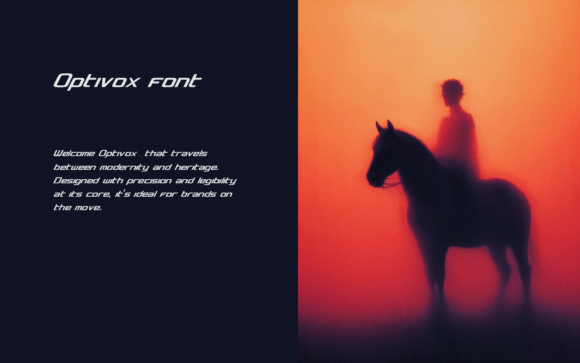
Introduction to Optivox Font
You know that moment when you’re working on a creative project and you finally find the perfect font to bring your vision to life? For designers, it’s a moment of pure joy. And if you’re looking for a font that exudes confidence, clarity, and a touch of heritage, you’re in luck. Say hello to the Optivox Font, a sans-serif font that seamlessly blends modernity and tradition.
With its precision-crafted design and subtle retro curves, the Optivox Font is the perfect design resource for brands on the move. Whether you’re creating a signage system, editorial spread, or any other high-quality visual content, this font is sure to deliver. And the best part? It’s available for free download, making it an accessible and valuable addition to any designer’s toolkit.
Key Features of Optivox Font
- Characteristics include a transparent background and a sleek, minimalist design, making it perfect for backgrounds, overlays, and other creative applications.
- Optivox Font is a versatile design resource suitable for a wide range of creative projects, from digital art to print media.
- Its high-quality design and transparent background make it an excellent choice for designers looking to add a touch of sophistication to their work.
Honest Review: Optivox Font
What works well with the Optivox Font is its versatility. The font’s sleek and modern design makes it suitable for a wide range of creative projects, from graphic design to web development. The font also comes with a transparent background, which is perfect for designers who want to create stunning visuals without any distractions.
Here are some of the key features that I like about the Optivox Font:
- Compatible with various creative projects
One limitation of the Optivox Font is that it may not be suitable for projects that require a lot of customization. The font’s design is quite bold, so it may not be the best choice for projects that require a more subtle approach.
Overall, I’m impressed with the Optivox Font and would definitely recommend it to designers who are looking for a high-quality, free design resource. With its sleek design and versatility, it’s a great addition to any design toolkit.